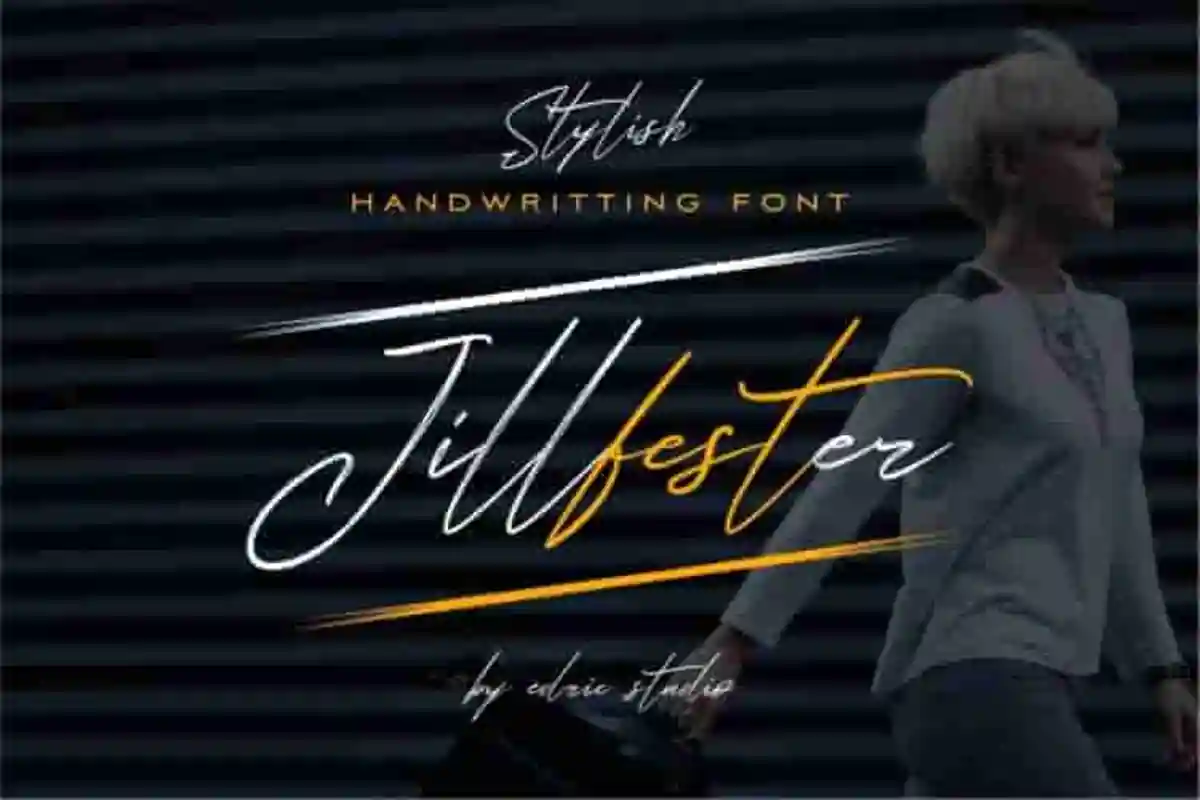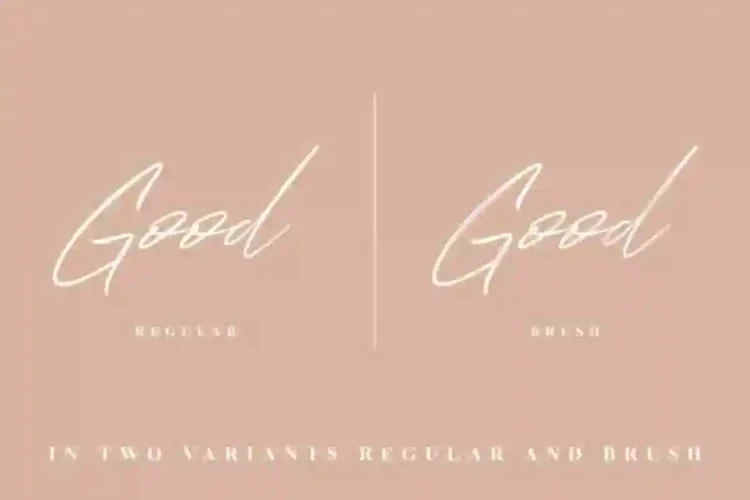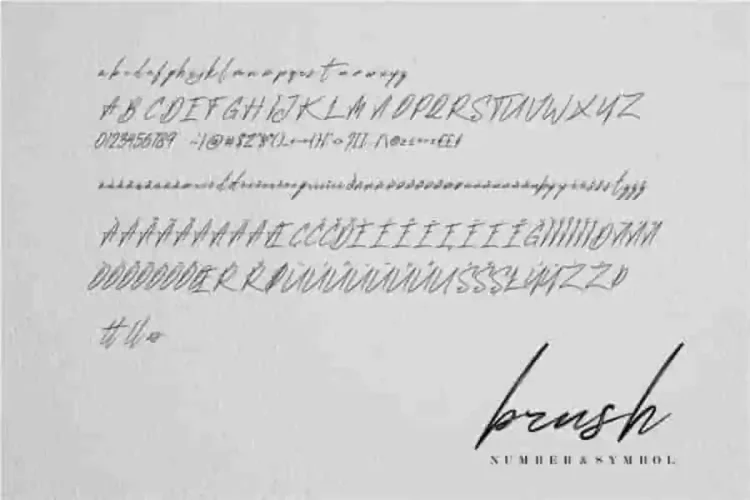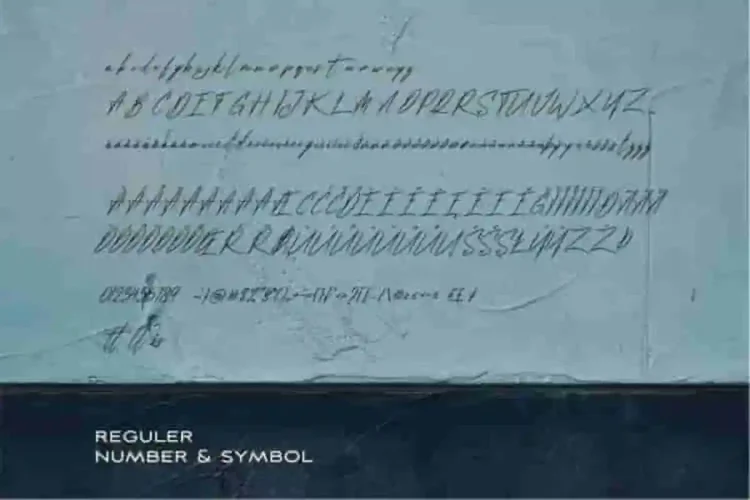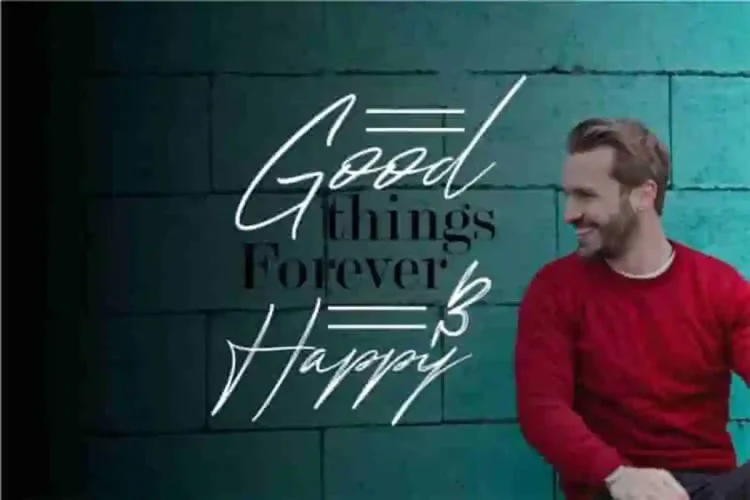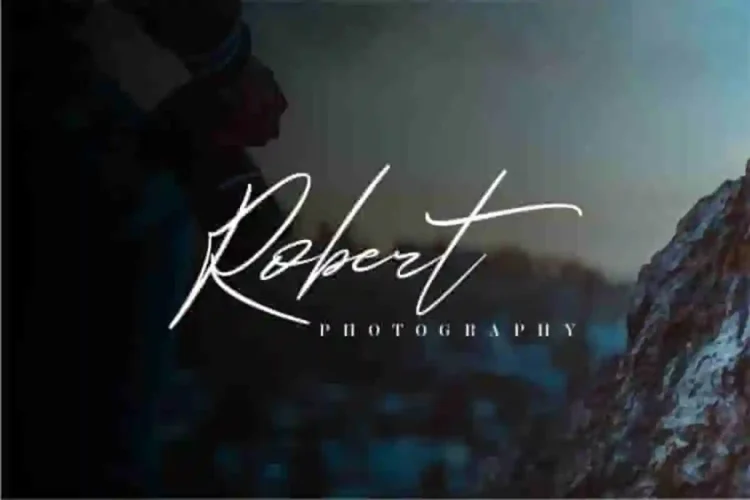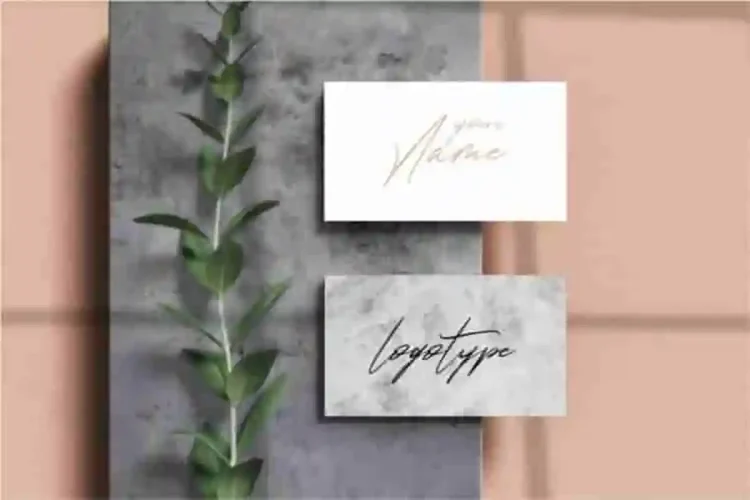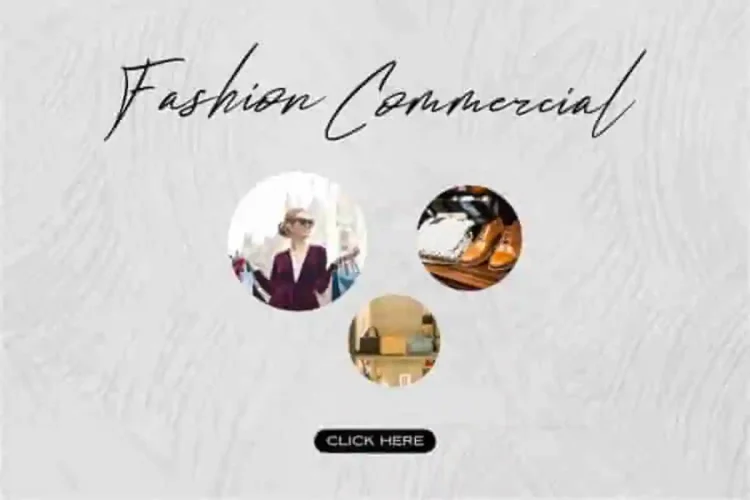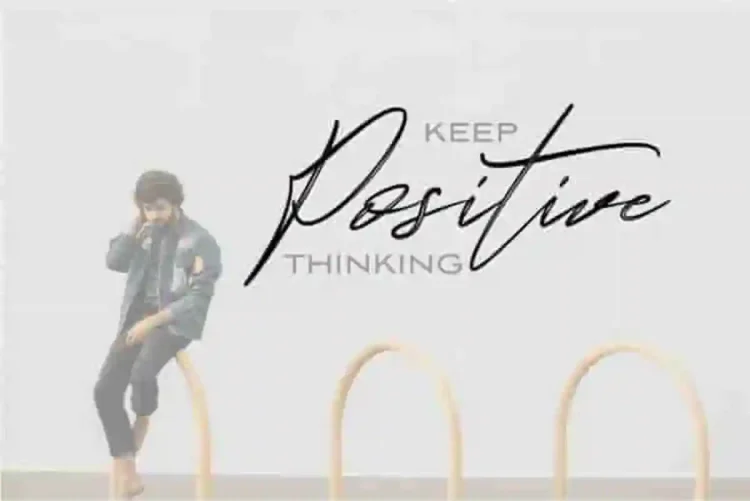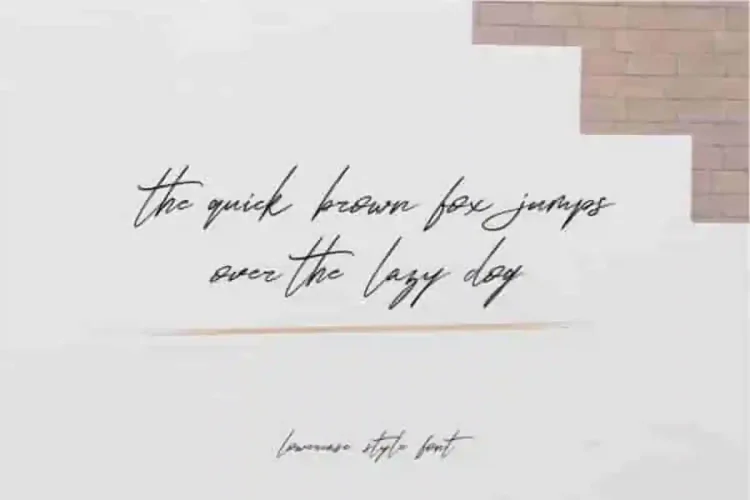
Jillfester Signature Font
Hello everyone! Let us introducing our latest creation : Jillfester Signature Font
Jillfester Signature Font has  two styles : clean and textured signature glyphs. This font will be great for many projects : branding, logotype (with extended license), stationery, business card, signage, flyer, brochure, promotional materials etc.
Every letter in Jillfester is designed with precision, giving your text a distinctive personality. .Jillfester Signature Font support many international multi-language characters.